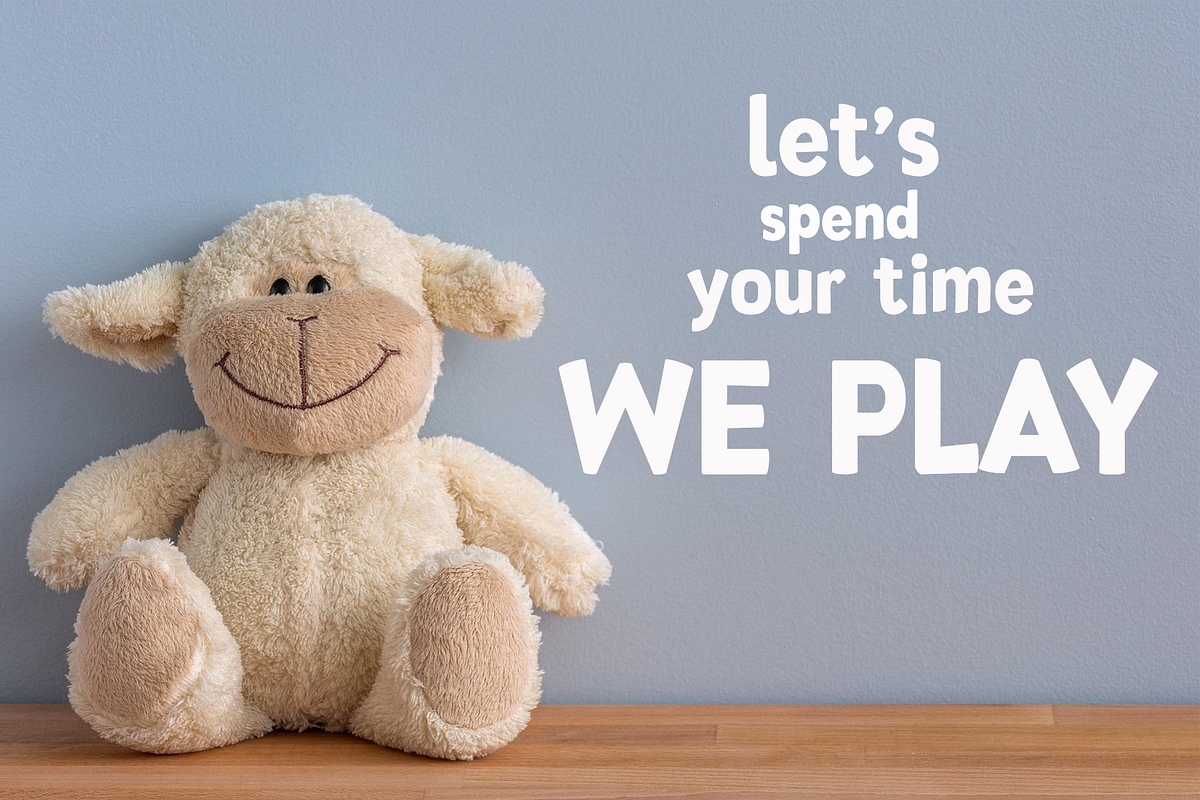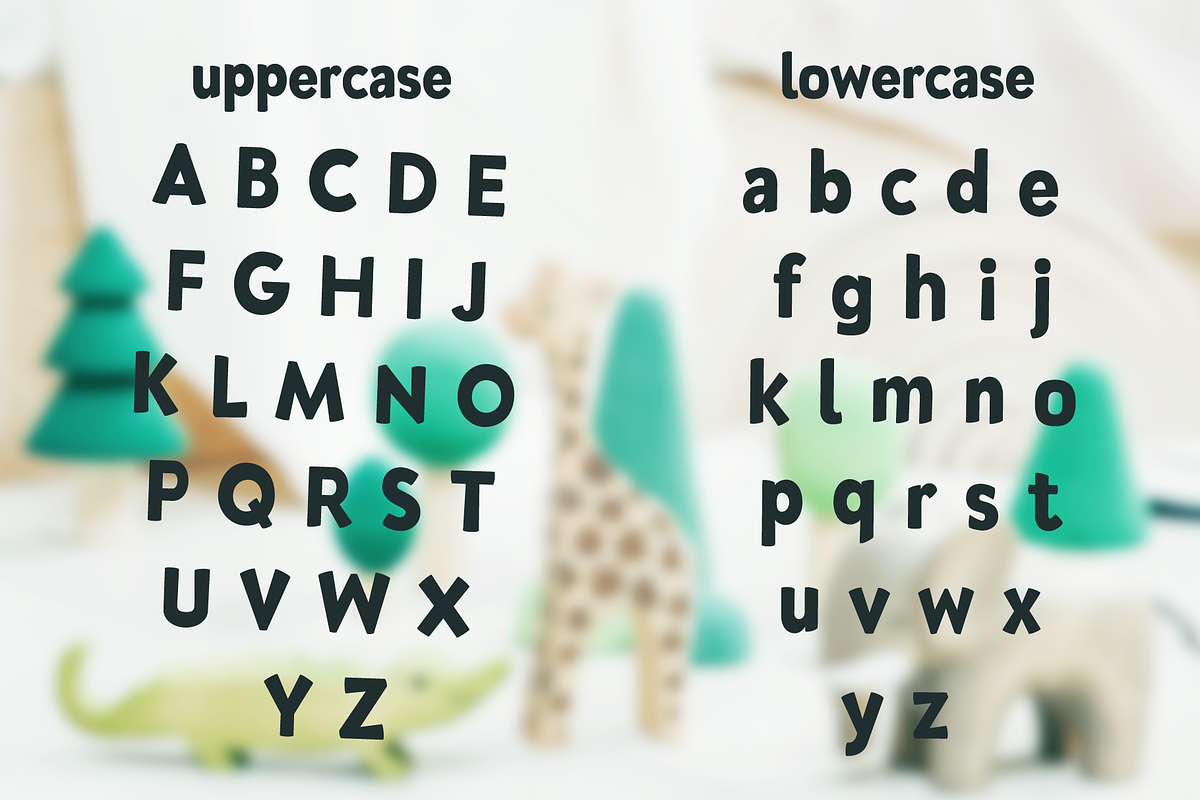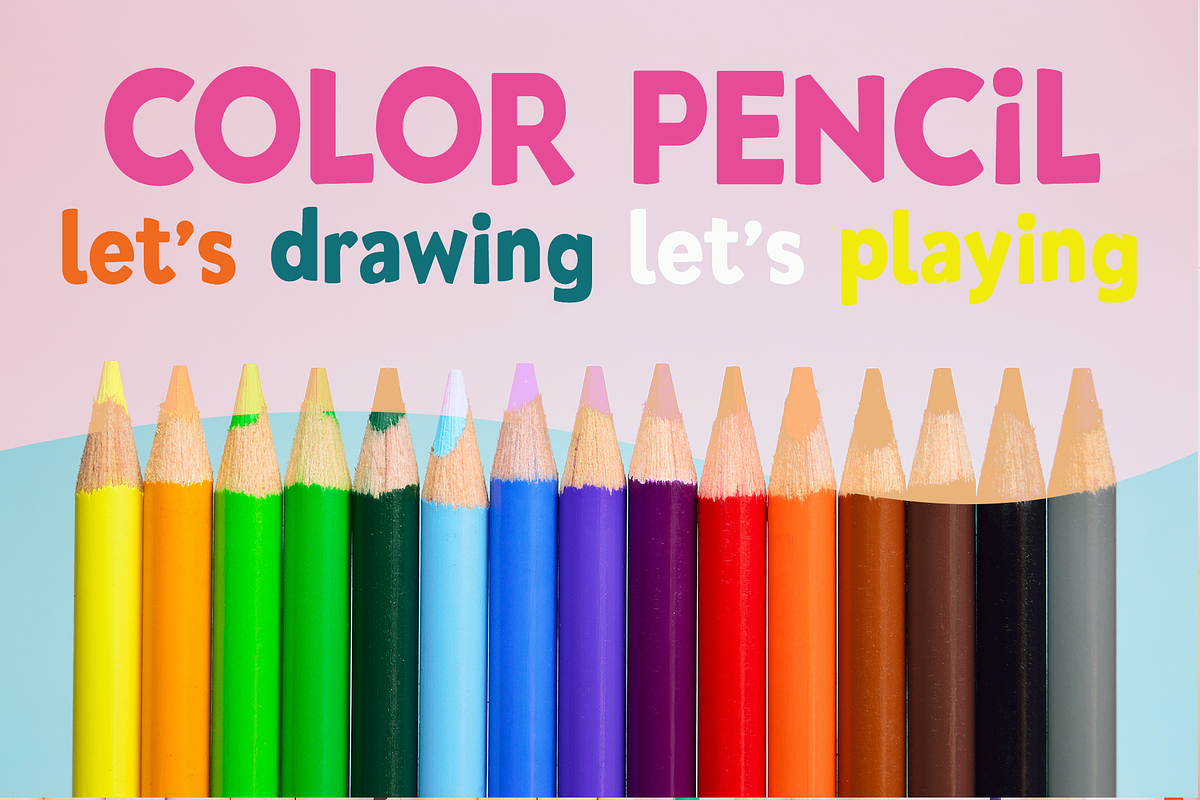
Zezebo - Fun Display Font
Introducing Zezebo, an simple, modern, and fun display font. Its unique and lovely feel. So perfect for you who needs a typeface for logo designs, magazine, social media, brochure, and many more.